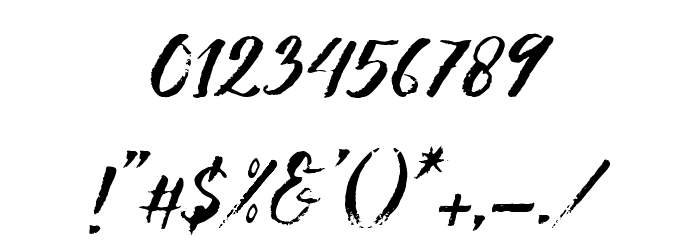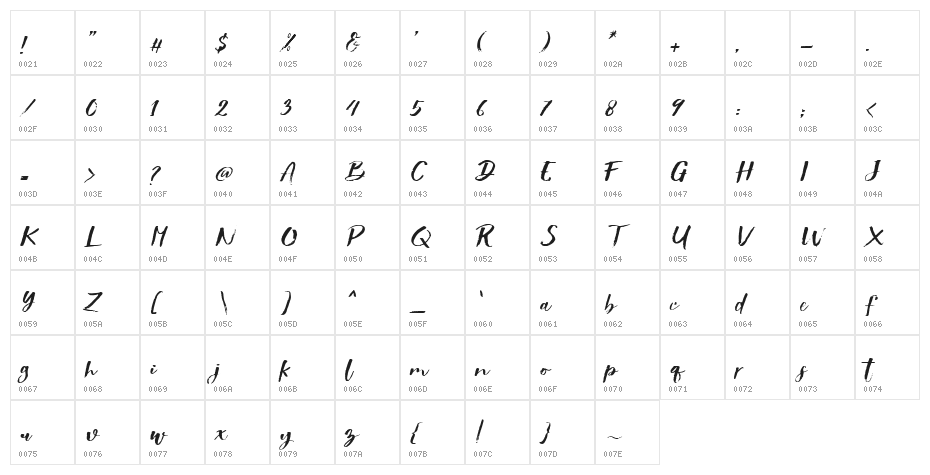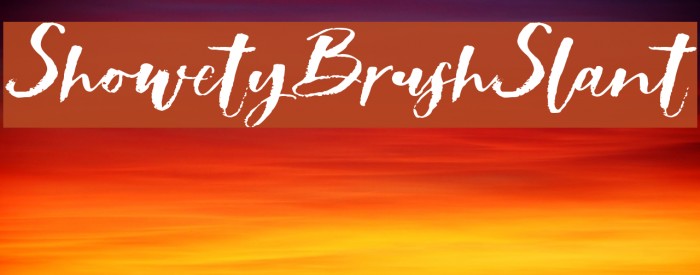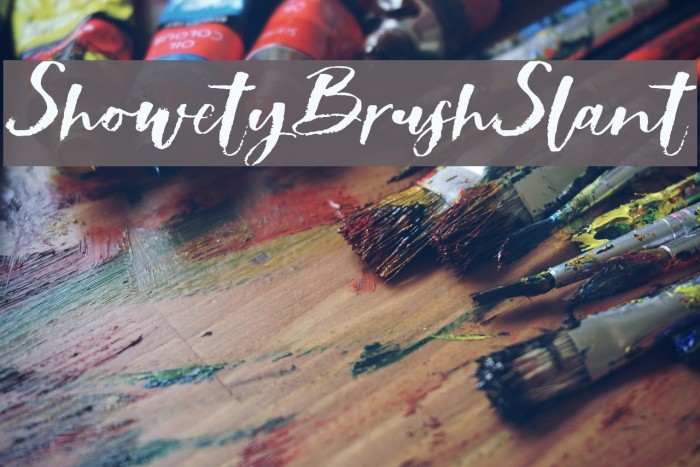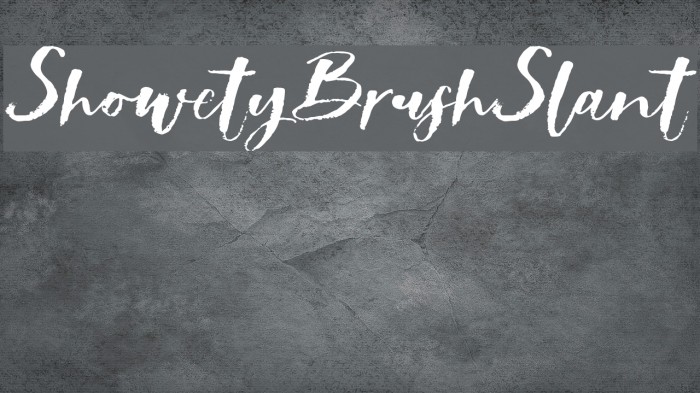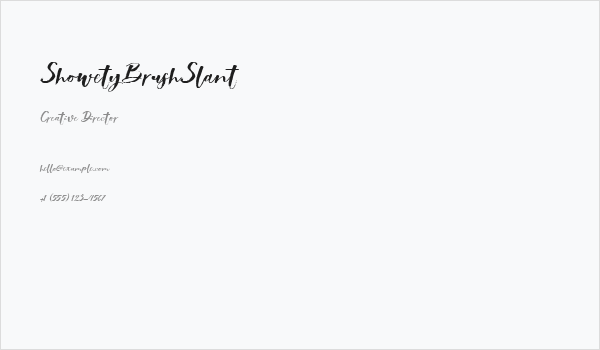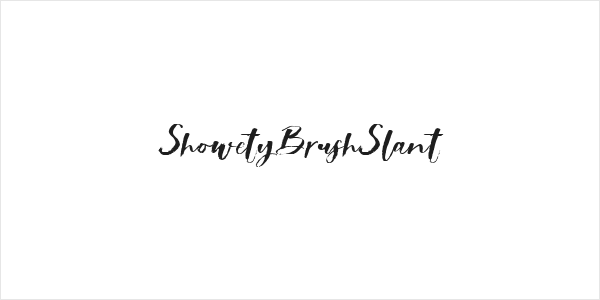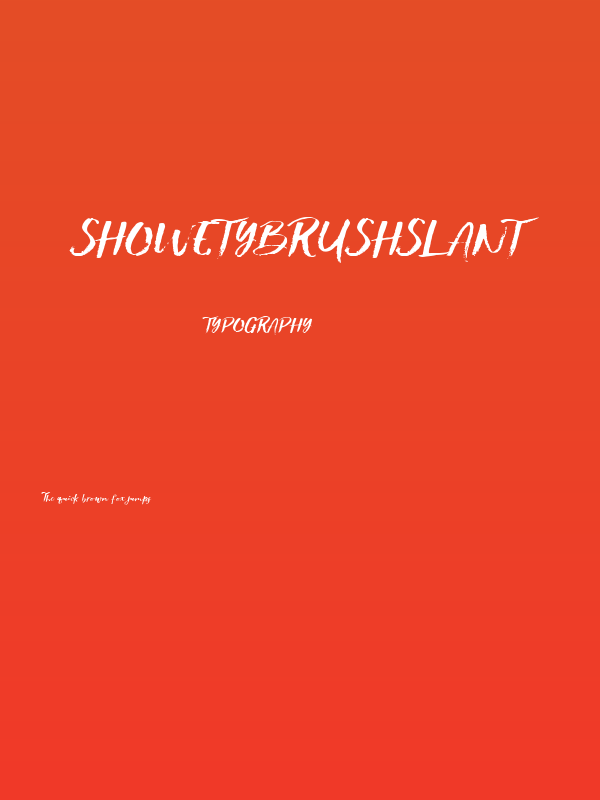
ShowetyBrushSlant Font
ShowetyBrushSlant Description
This font features a dynamic and expressive brush style with a slanted orientation, giving it a lively and energetic appearance. The strokes are bold and textured, mimicking the natural flow of hand-painted lettering. The uppercase letters are slightly larger and more pronounced, while the lowercase letters maintain a consistent flow, enhancing readability. The numbers and special characters are crafted with the same brush-like texture, ensuring a cohesive look across all characters. This font exudes a sense of creativity and spontaneity, making it ideal for projects that require a personal touch.
| Proposed Projects | Ideal for branding, packaging design, posters, and any creative project that benefits from a handcrafted feel. |